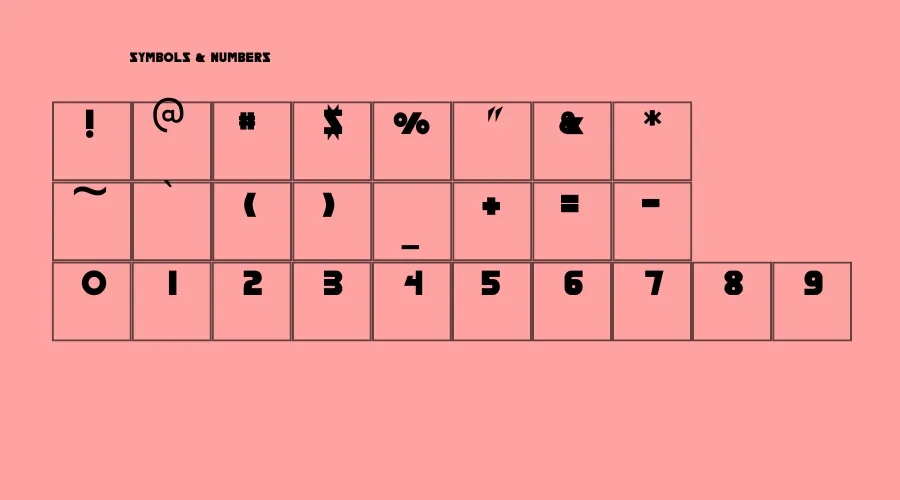
Pastor of Muppets TR Font
About Pastor of Muppets TR Font
The Pastor of Muppets TR Font is a wonderful typeface and is under the category of the techno texture family. This font was developed by a well-known typographic designer named Rob Leuschke. It is free and the perfect choice for all your individual and branding purposes.
You can utilize this font with many other fonts, but this font makes best paired with the space frigate font and create elegant projects.
This font contains various types of weights and styles, such as bold, italic, and regular. You may utilize its stunning characters for both CSS and adobe photoshops. The online generator tool of this font will transform all your normal types of structures into stylish and trendy shapes.
The subfamily of this typeface is regular and it supports various types of international languages such as English, Arabic, Bangla, Bengali, Mandarin, Hindi, Russian, Spanish, and French.
This font has a stylish and stunning texture look that is perfect for all your fun tasks and purposes. You may utilize this font for making logo designs, posters, social media posts, and many other projects. It is also perfect for all your individual and commercial designs.
You may also use this font for creating interesting designs, covers, shop and store names, and logos. This font works well in different kinds of projects like company stores, card designs, wedding cards, and birthday cards.
The pairing quality of this typeface is perfect for various purposes because it can be paired best with the jagged font and make new elegant projects.
Another great use for this typeface is when creating titles and other text elements. This font provides a modern look to all your new creations.
What kind of font is Pastor of Muppets TR Font?
The Pastor of Muppets TR Font is a wonderful typeface and is under the category of the techno texture family. This font was developed by a well-known typographic designer named Rob Leuschke.
What Font is Similar to Pastor of Muppets TR Font?
There are many typefaces that look similar to that typeface. But the marina font is a perfect choice for this font. It will help you to create elegant designs.